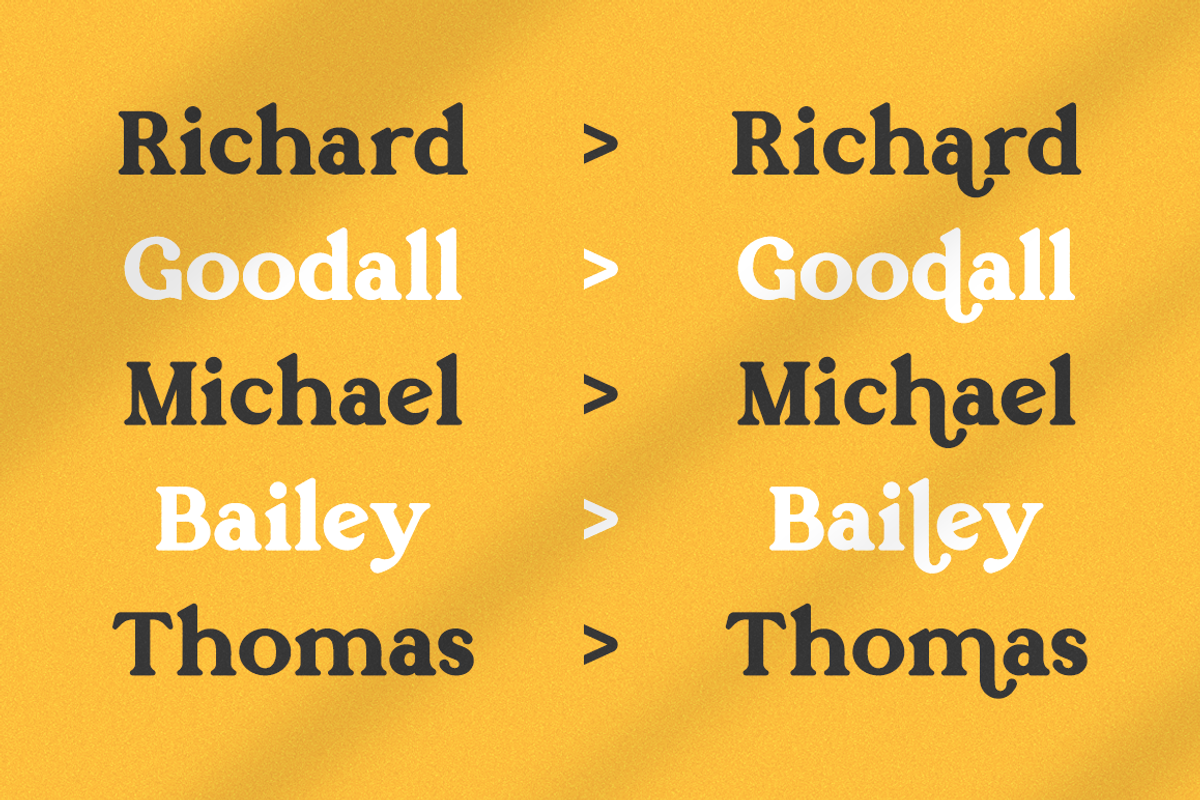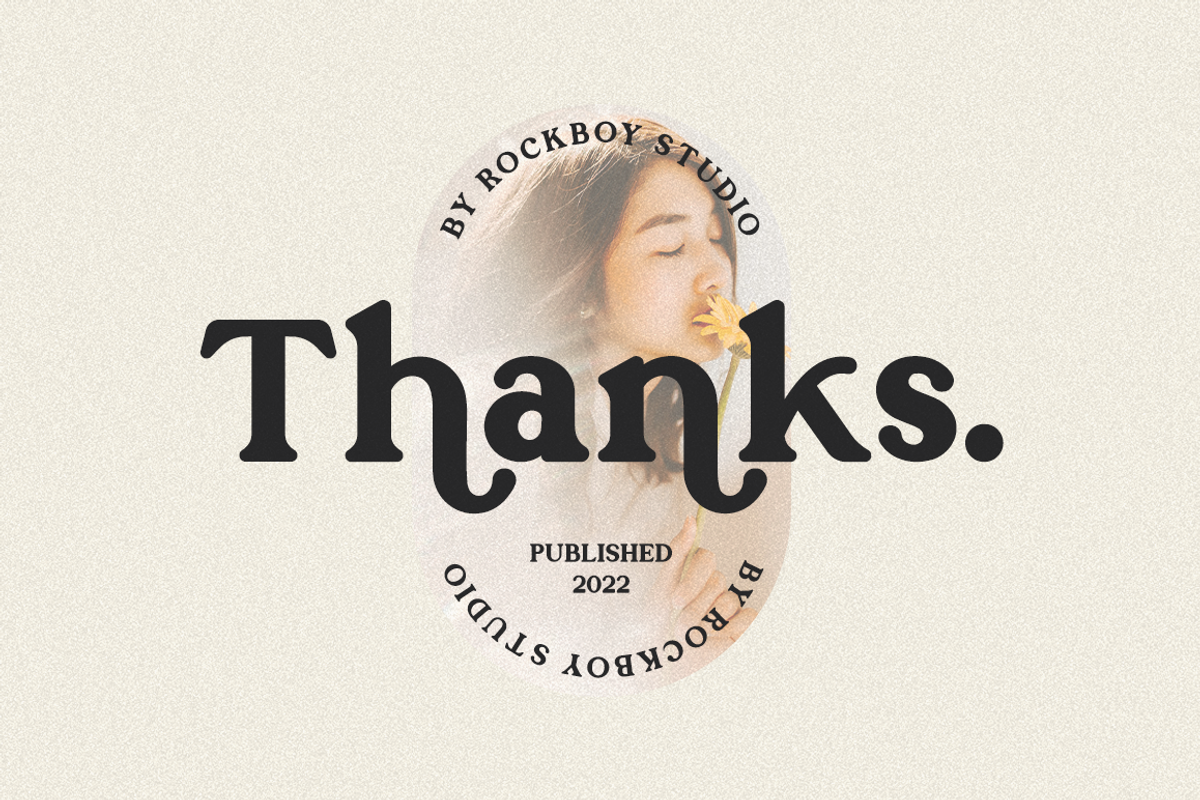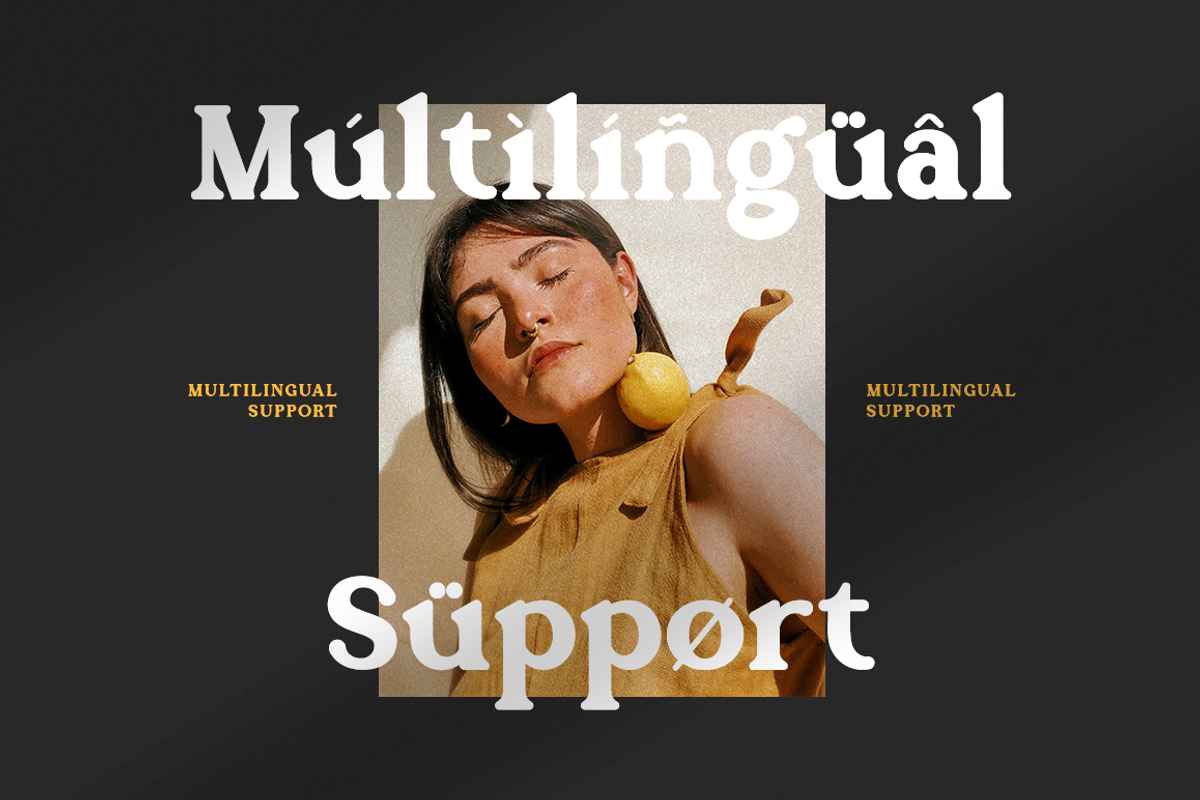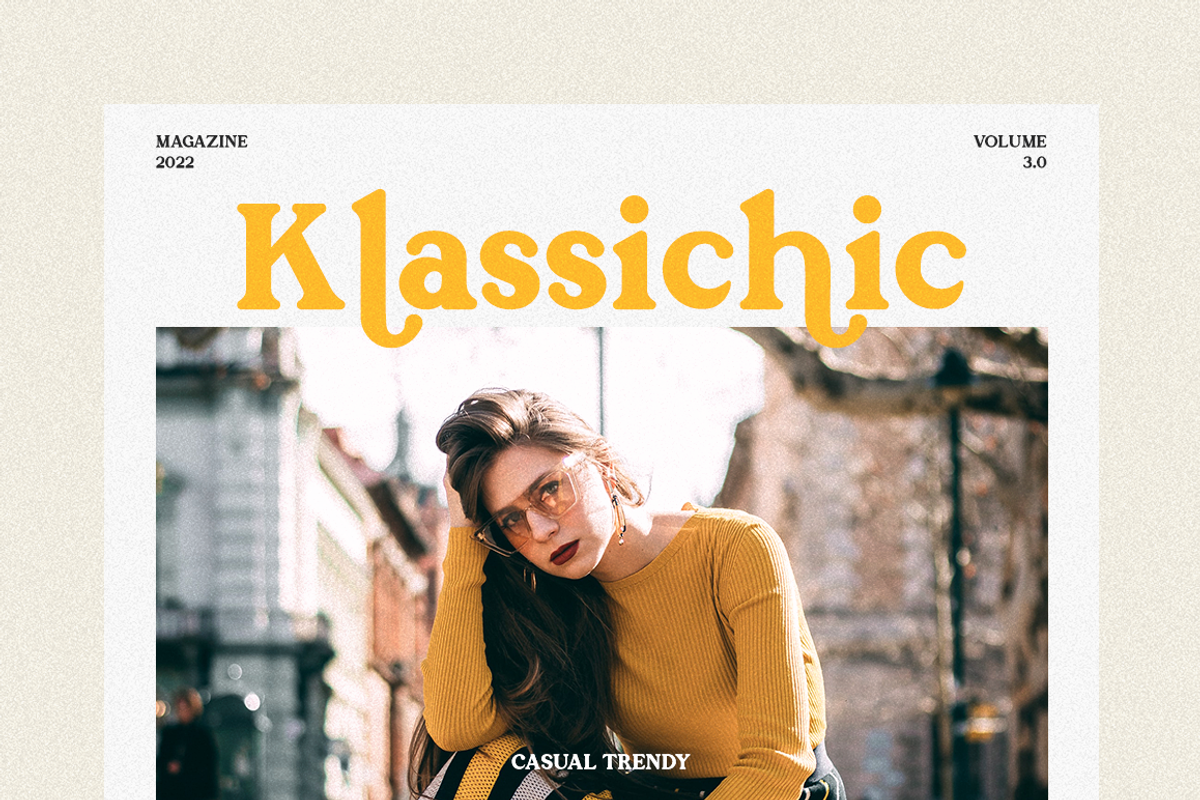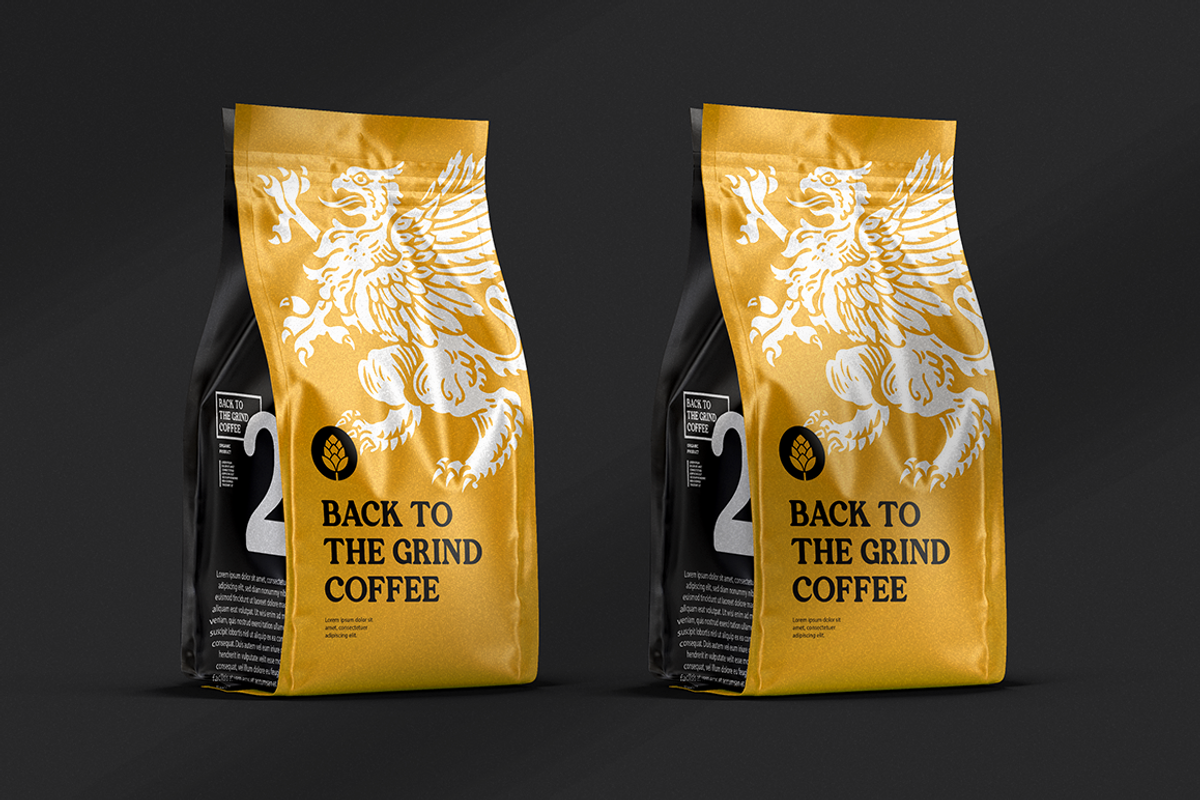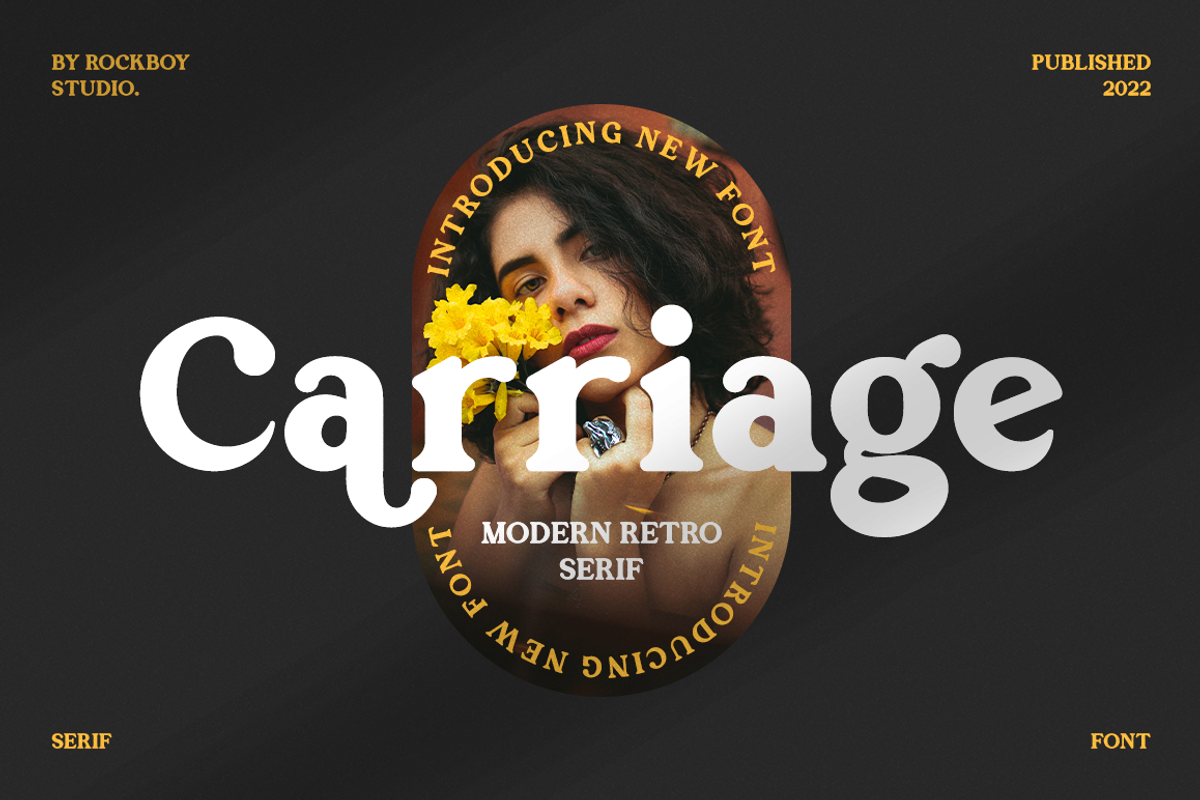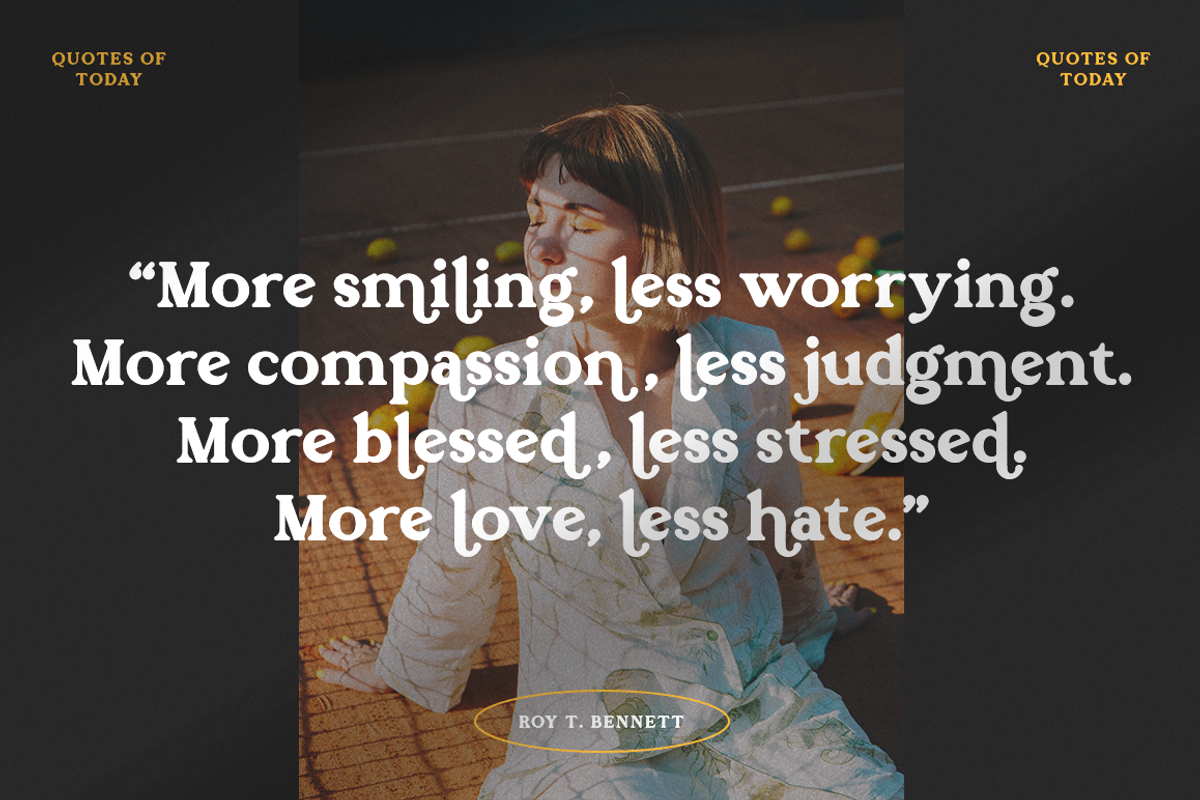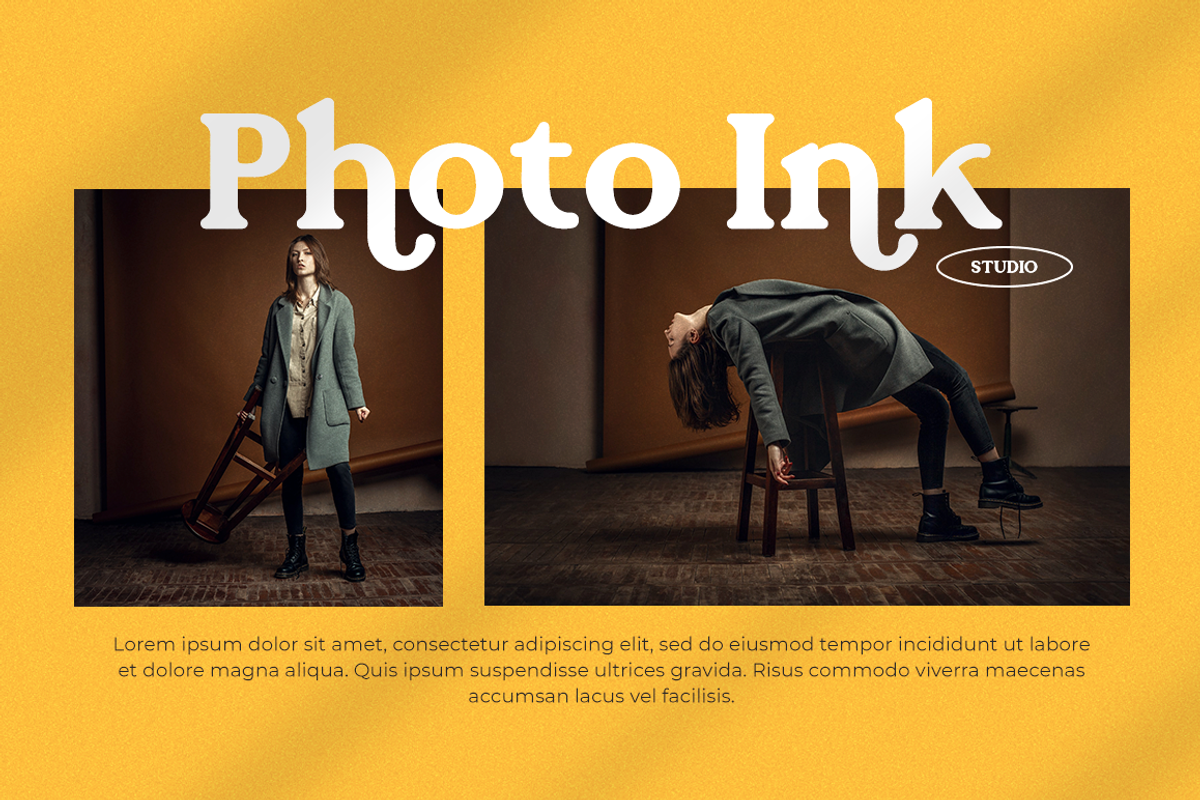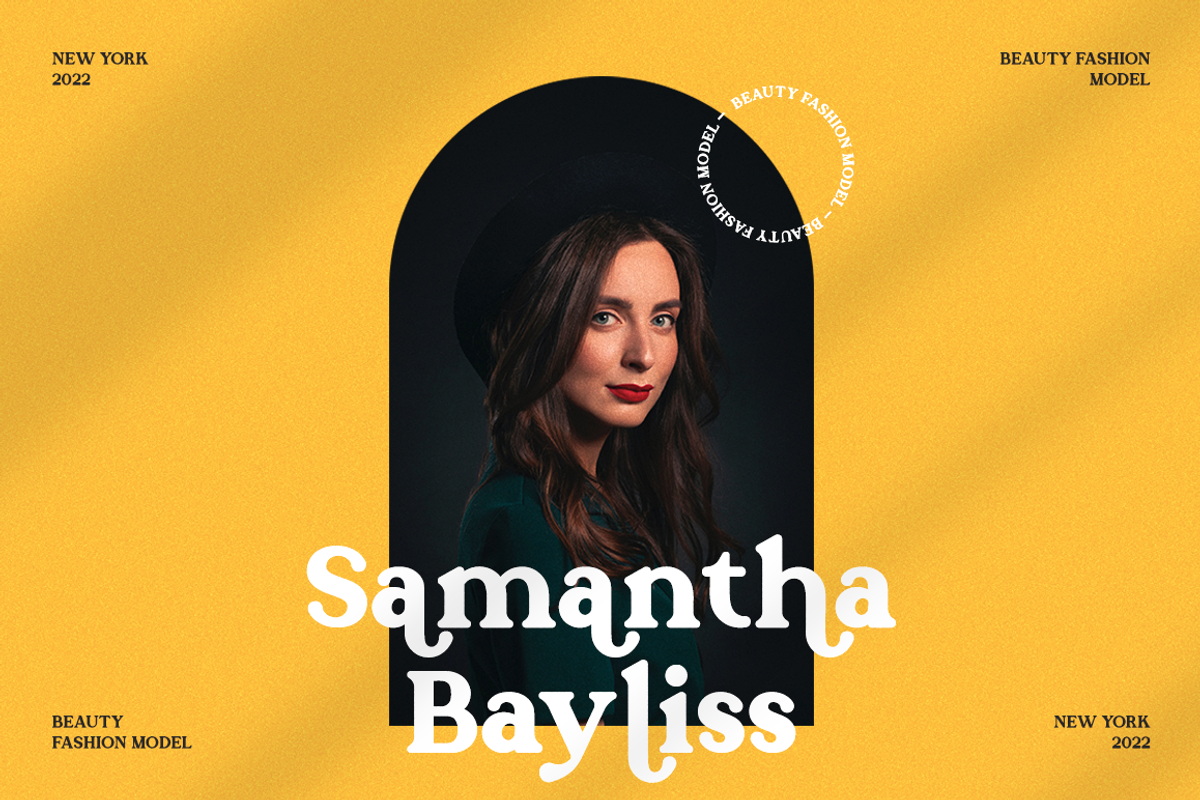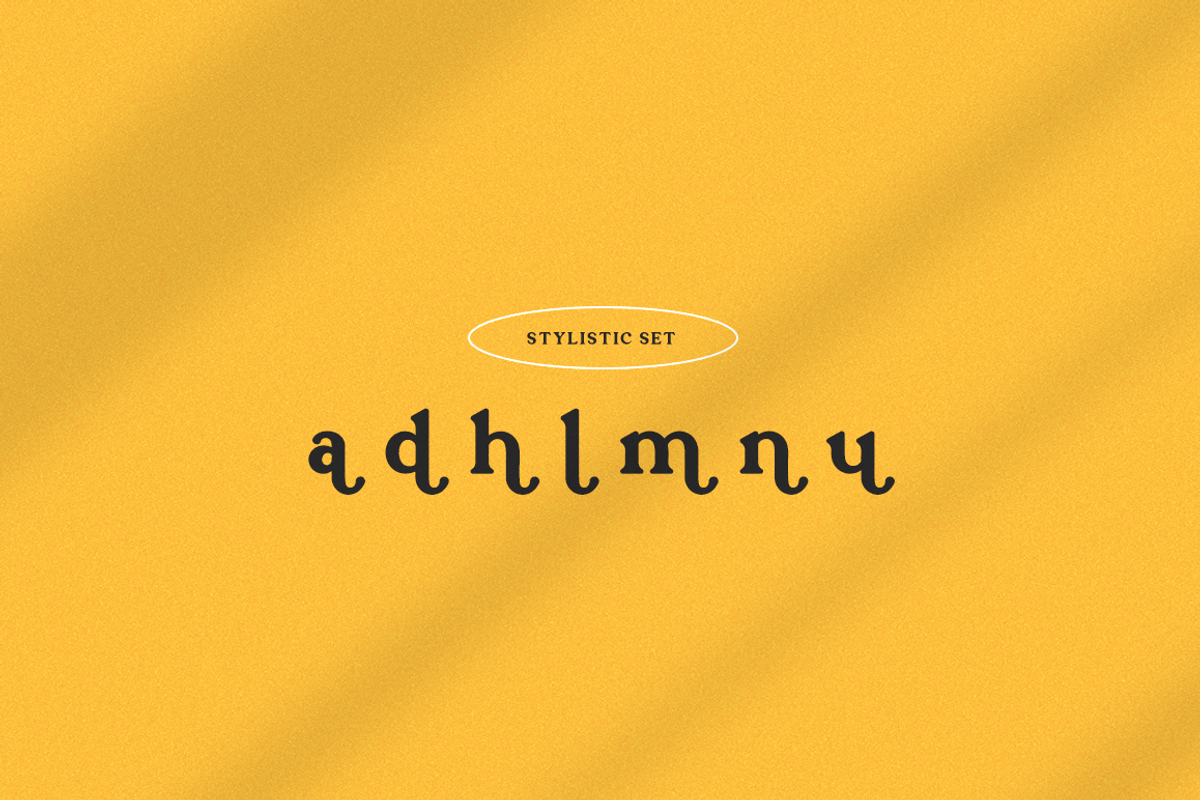
Carriage - Modern Retro Serif Font
Carriage is an elegant and distinct serif font. Suitable to a wide variety of designs due to its neat and simple style, this font has the potential to become your favorite go-to font, no matter the occasion!